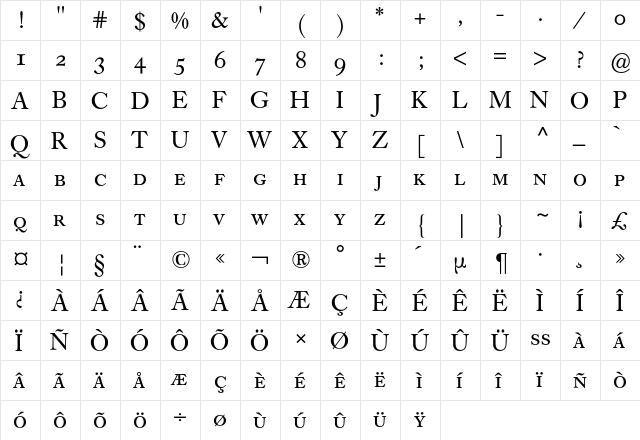
Caslon Buch Expert BQ Regular Font Preview
Caslon Buch Expert BQ Regular
Design Context for Caslon Buch Expert BQ Typeface
Caslon Buch Expert BQ offers clean, dependable letterforms without strong stylistic allegiance, making it a practical choice for designers who need flexibility.
Pro Tip: Use Caslon Buch Expert BQ in both headline and body roles to test its range before committing to a single application.